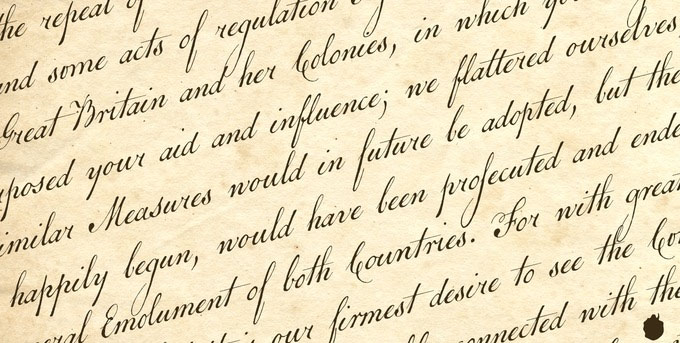
The 4 Main Types of Fonts Defined
While there are hundreds of sub-categories, almost every typeface falls into one of these four primary buckets. Understanding the difference is the first step in good design.1. Serif Fonts
The Traditional Choice. Serif fonts have small “feet” or decorative lines at the ends of their strokes. They are widely used in long-form print (books, newspapers) because these feet guide the eye horizontally, improving readability.- Vibe: Trustworthy, classic, formal, established.
- Famous Examples: Times New Roman, Garamond, Baskerville.
2. Sans Serif Fonts
The Modern Choice. “Sans” means “without.” These fonts lack the decorative feet, offering clean, straight lines. They dominate the web and digital screens because their simple shapes remain clear even at low resolutions.- Vibe: Modern, clean, minimal, approachable.
- Famous Examples: Helvetica, Arial, Futura, Open Sans.
3. Script Fonts
The Elegant Choice. Script fonts mimic handwriting, calligraphy, or cursive styles. They range from formal flourishes to casual messy markers. Use them sparingly—typically for headlines or invitations—never for body text.- Vibe: Elegant, personal, creative, fancy.
- Famous Examples: Pacifico, Great Vibes, Allura.
4. Decorative (Display) Fonts
The Attention-Grabber. This catch-all category includes fonts designed purely to be looked at, not read through. They might look like graffiti, horror movie titles, or bubble letters. Perfect for logos and posters; terrible for paragraphs.- Vibe: Unique, loud, thematic, bold.
- Famous Examples: Lobster, Bangers, Monoton.
Now Let’s Take a Closer Look…
Those are the “Big Four,” but the world of typography gets much more granular. Below, we’ve broken down 17 specific categories—from Slab Serifs to Grunge—that professional designers use to set exactly the right tone. Let’s dive in.
1) Serif
Serif fonts are typefaces composed of lines with their ends embellished with small marks or strokes making them easy to read. Serifs originated in the Latin Alphabet. An example of classic serif fonts are Times Roman, New Century Gothic, and Palatino.
2) Sans Serif
Sans Serif fonts are fonts composed of simple lines. They do not have the small embellishments that the Serif fonts do on the end of each character. The term comes from the French word Sans, meaning “without” and “serif” (Dutch) with the meaning “line”. Some popular sans serif fonts are Helvetica, Avant Garde and Geneva.
3) Display
Display type is also known as headline type and is meant to draw and hold a viewer’s attention. They tend to appear in advertisements on billboards, posters, book jackets and packaging. Type usually set larger than 14 point is considered “display” and sets the tone for a design piece.4) Slab Serif
The Slab Serif is about a 200 year old letterform that came from Britain and quickly became very popular, with their geometric and beefy block-like serifs plastered all over everything from crates to pamphlets. Until this time, the usual font of the day had been used for long sections of type, but as the printing industry grew, advertisers were in need of a bold call-out type. Slab fonts carry a certain typographic authority, that demand the viewers attention.5) Hand drawn
Hand drawn fonts are a great way to add a little character and charm to your design. Some are created completely by hand, while others are sketched and scanned into Illustrator or Photoshop. Some are very clean and easy to read, while others may have a natural sketchy flow giving a piece a particular personality or mood. There are endless possibilities in creating hand drawn fonts by combining qualities found in various styles of type such as Art Deco, historic display, thin, and thick slabs, etc.
6) Script
Script fonts come in many styles from casual to highly organized and elegant. They are based on the fluid strokes that are created by handwriting. Script fonts are popularly used for formal invitations such as wedding or concerts, as well as informal gatherings.
7) Retro
Retro type is used to carry a viewer decades into the past achieving an “old fashioned” look to creative pieces. Retro fonts are found in serif, sans serif, and script typefaces and are often used as bold headlines in vintage and classic posters, logos and packaging.
8) Dingbat
Dingbats, also known as printers characters or ornaments, are fonts that have shapes and symbols in the place of the alphabet and numeric characters. There are many varieties: Pictograms, design elements, user interface elements, buttons, illustrations, and bullet lists. One of the main advantages is the ability to create various sizes and colors without having to do any special editing. Dingbat types of fonts are eminently useful and should be a part of your basic type library. Find a good one, learn what’s in it, and keep it handy.
9) Monospaced
Monospaced fonts were created in order to meet the requirements of the typewriter. They are referred to as being non-proportional fonts, or fixed-width fonts. Meaning, that all of their characters occupy the same amount of horizontal space as opposed to variable width fonts that have different spacings and widths–they are proportionally spaced. Some examples of these fonts are Courier and Monaco. They are not defined by their beauty, and are often more difficult to read than proportional fonts. Monospaced types of fonts are always useful, though, in particular situations where you need things to line up.